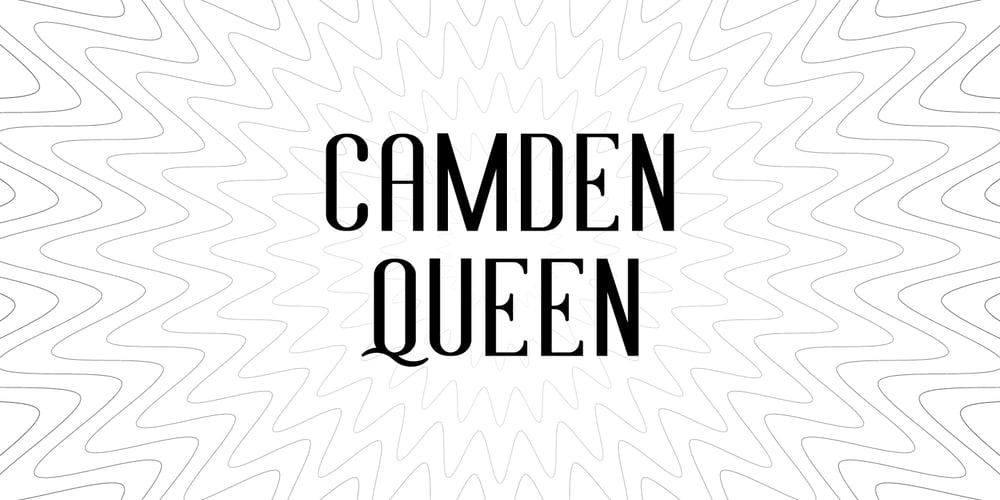
Camden Queen Font Family was designed by Mikhail Kosmosov and published by Asterisk. Camden Queen contains 1 styles and family package options. The font design is inspired by the long autumn evenings in London. Those “fast brown foxes” ran along the streets. Camden smelled delicious. And she was as beautiful as a queen.